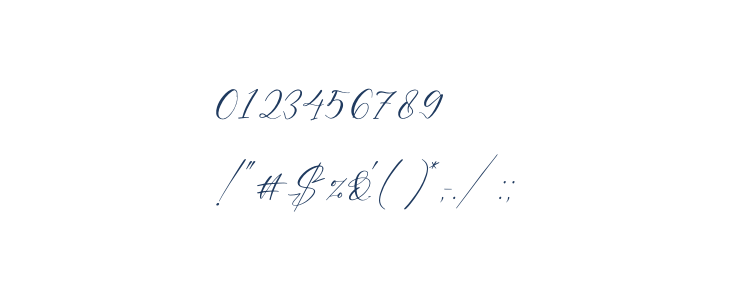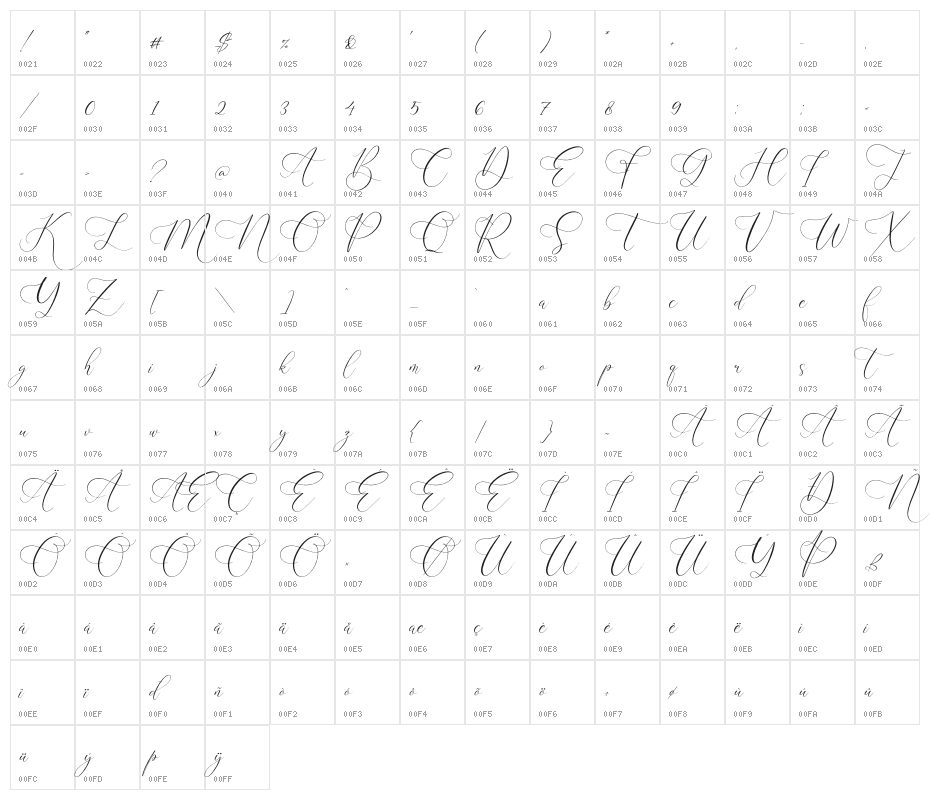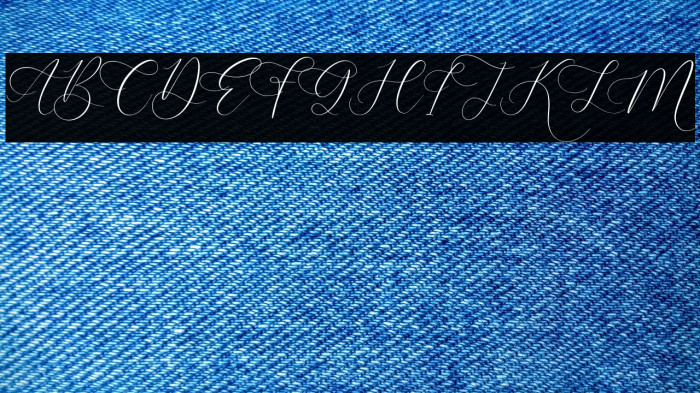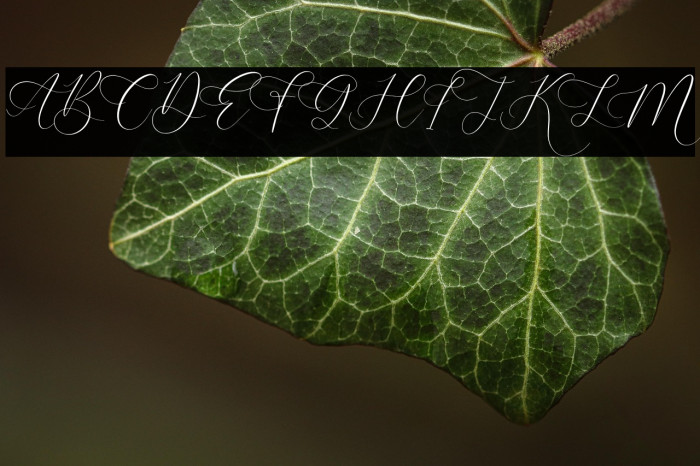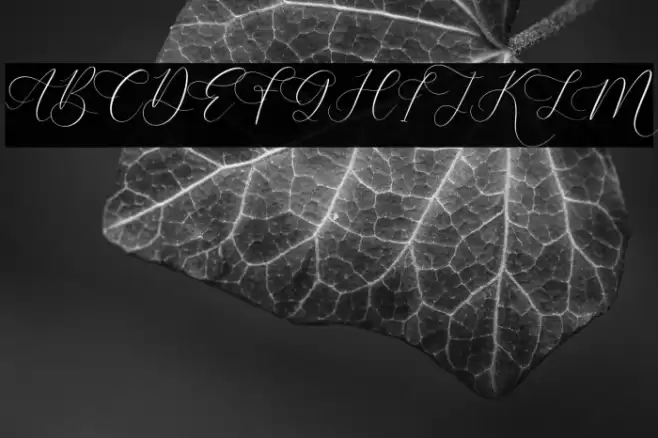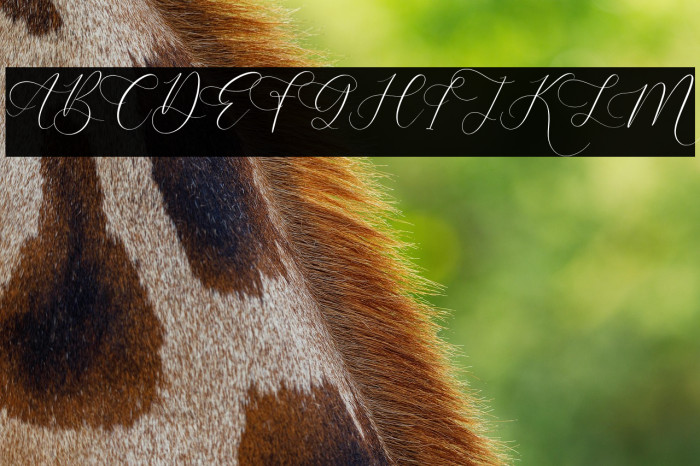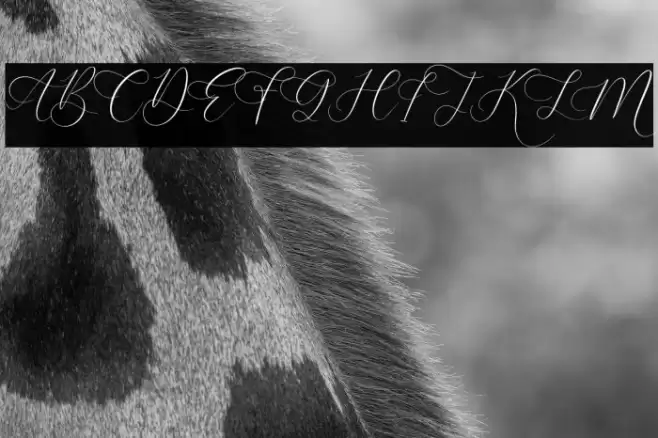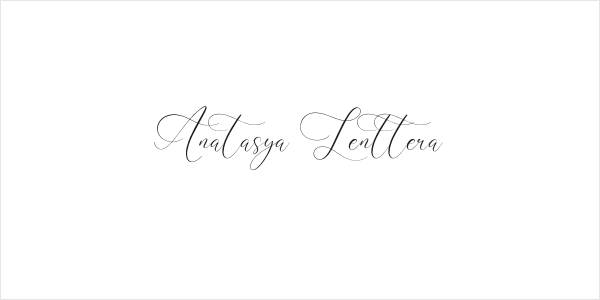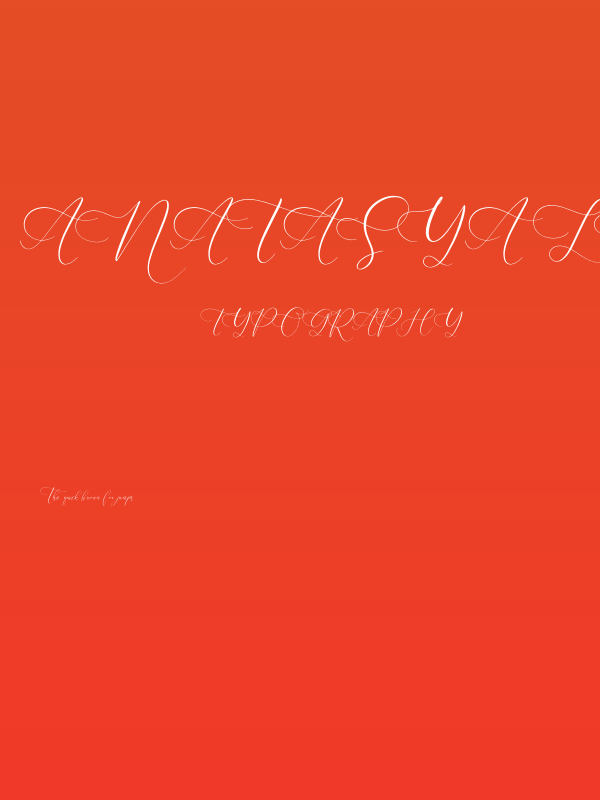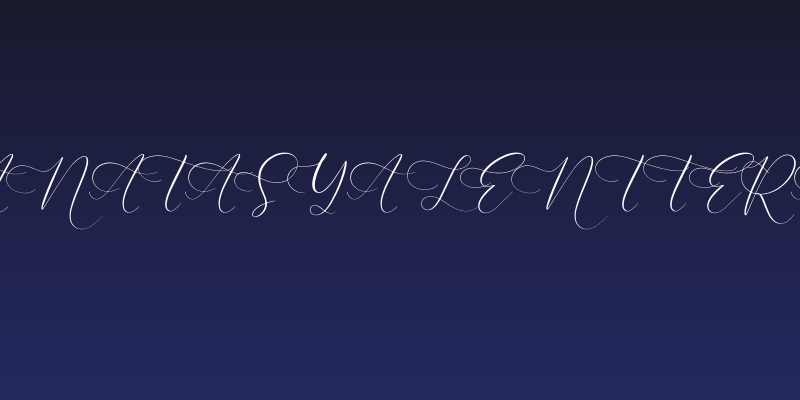
Anatasya Lenttera Font
Anatasya Lenttera Description
This elegant script font features flowing, interconnected letters with a refined and sophisticated appearance. The uppercase characters are ornate, with intricate loops and flourishes that add a touch of luxury. The lowercase letters maintain a graceful continuity, enhancing readability while preserving the decorative style. Numbers and special characters are designed with the same attention to detail, ensuring a cohesive look across all text elements. The font's delicate strokes and high contrast between thick and thin lines contribute to its overall elegance, making it ideal for formal invitations, branding, and other high-end design projects.
| Use Case | Headlines, Invitations, Branding |
| Proposed Projects | Ideal for wedding invitations, luxury branding, elegant stationery, and high-end product packaging. |